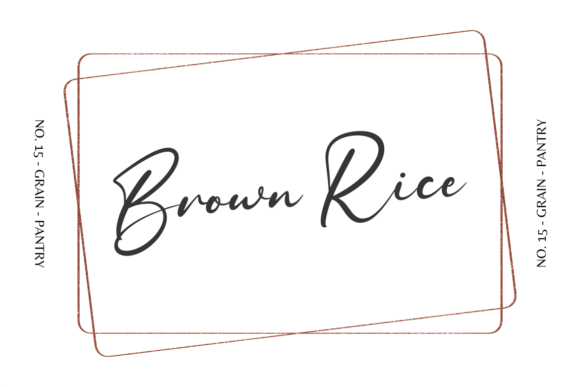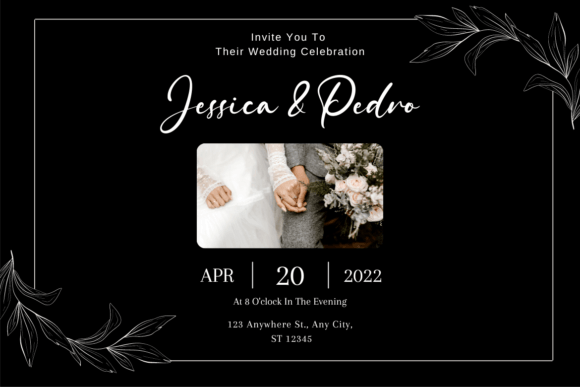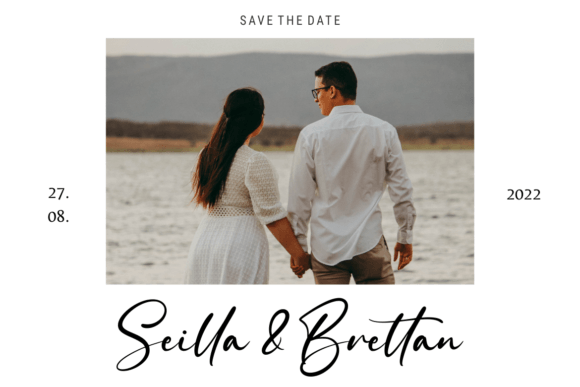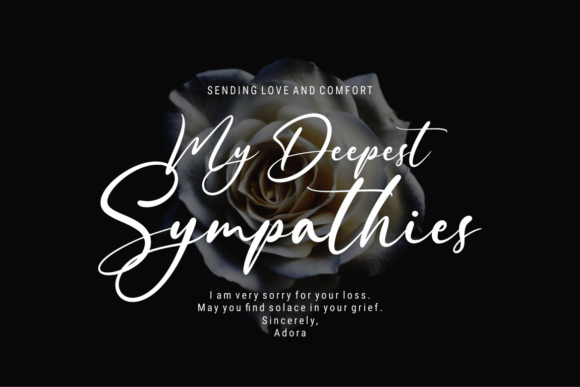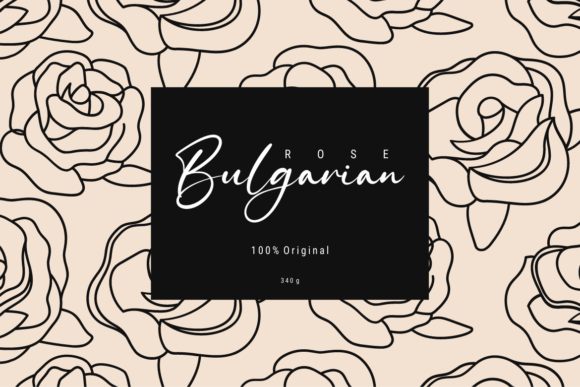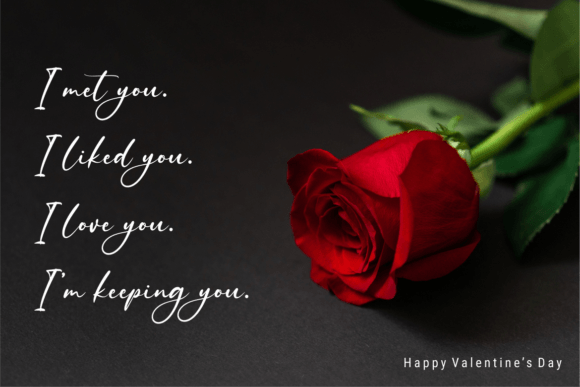
Introducing Blackrose Font: The Epitome of Elegance and Romance
Are you a designer or crafter looking for a font that exudes elegance, simplicity, and romance? Look no further than Blackrose Font, a delicate and stylish handwritten font that is sure to elevate your next project. With its wide range of applications, from greeting cards to headlines, Blackrose Font is the perfect addition to your typography arsenal.
The Characteristics of Blackrose Font
Blackrose Font is a beautiful example of a handwritten font that has been crafted with precision and care. Its delicate strokes and simple design make it a versatile font that can be used in a variety of contexts. The font’s stylish and elegant appearance is sure to add a touch of sophistication to any project, whether it’s a wedding invitation, a greeting card, or a headline.
Applications of Blackrose Font
One of the best things about Blackrose Font is its wide range of applications. This font is perfect for:
- Greeting Cards: Add a personal touch to your greeting cards with Blackrose Font. Whether it’s a birthday, anniversary, or wedding, this font is sure to make your card stand out.
- Headlines: Use Blackrose Font to create eye-catching headlines that are sure to grab attention. Its elegant design makes it perfect for magazine covers, blog posts, and social media graphics.
- Wedding Invitations: Make your wedding invitation stand out with Blackrose Font. Its romantic feel is sure to set the tone for a beautiful and memorable wedding.
- Branding: Use Blackrose Font to create a unique and memorable brand identity. Its stylish design makes it perfect for logos, packaging, and marketing materials.
The Benefits of Using Blackrose Font
So why should you choose Blackrose Font for your next project? Here are just a few benefits of using this beautiful font:
- Elegance: Blackrose Font exudes elegance and sophistication, making it perfect for projects that require a touch of class.
- Versatility: With its wide range of applications, Blackrose Font is a versatile font that can be used in a variety of contexts.
- Romantic Feel: Blackrose Font has a romantic feel that is sure to add a touch of warmth and personality to your project.
- Easy to Read: Despite its delicate design, Blackrose Font is easy to read, making it perfect for body text and headlines.
Tips for Using Blackrose Font
Here are a few tips for using Blackrose Font in your next project:
- Pair it with a bold font: Pair Blackrose Font with a bold font to create a striking contrast that is sure to grab attention.
- Use it for headlines: Use Blackrose Font for headlines to create a beautiful and elegant design that is sure to stand out.
- Add some flair: Add some flair to your design by using Blackrose Font with a decorative element, such as a floral pattern or a ribbon.
In conclusion, Blackrose Font is a beautiful and elegant handwritten font that is sure to add a touch of romance and sophistication to your next project. With its wide range of applications, versatility, and ease of use, Blackrose Font is a must-have for designers and crafters. Whether you’re creating a greeting card, headline, or wedding invitation, Blackrose Font is the perfect choice.